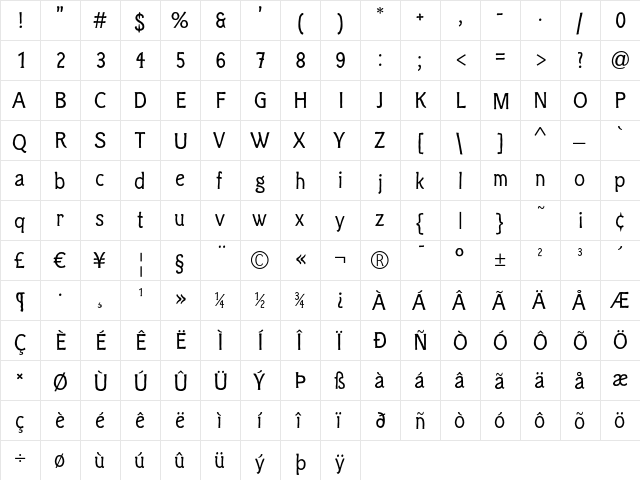
Clichee Regular Font Preview
Clichee Regular
| Foundry | Frantisek Storm |
Design Context for Clichee Typeface
Clichee is a composed and adaptable typeface that performs quietly and consistently across a wide range of design contexts.